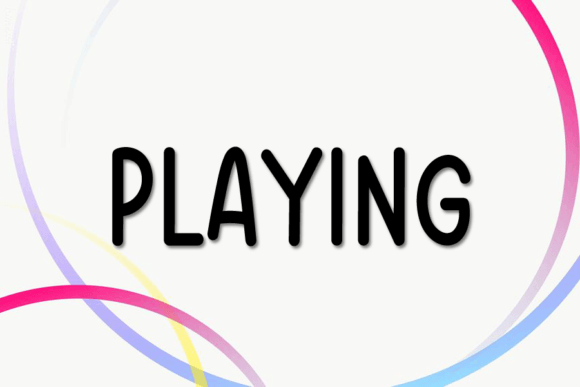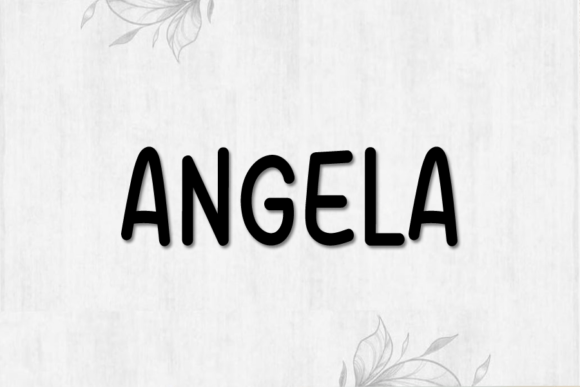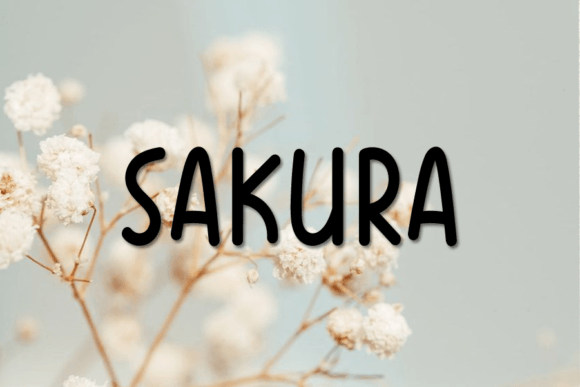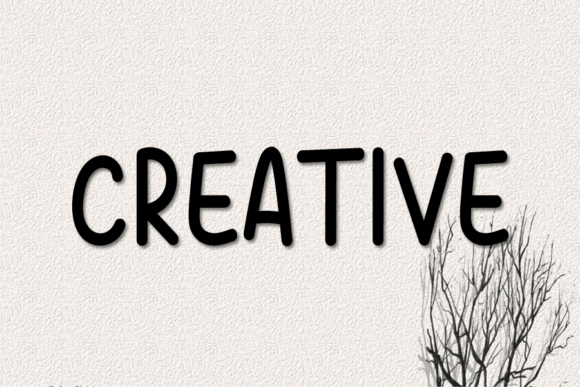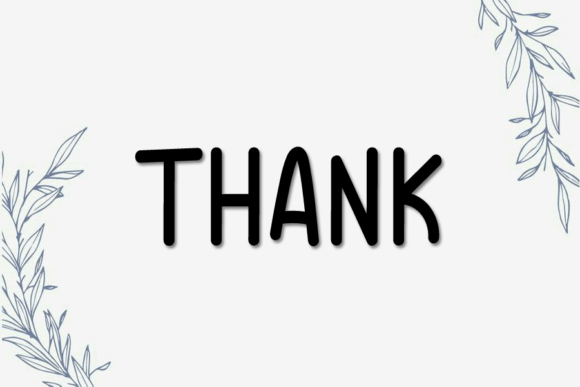
Add a Natural Touch with Handmade Font
Handmade Font is a classic handwritten script designed with a free-flowing, casual style. Inspired by real pen strokes, it brings authenticity and warmth to your creative projects. Its slightly imperfect charm makes it feel personal and expressive—just like something hand-drawn with care.
Because of its simplicity and balance, Handmade Font blends beautifully into both playful and professional settings.
Ideal for Versatile Creative Projects
Whether you’re working on digital designs or printed materials, Handmade Font is a smart choice. It’s flexible enough for a wide range of applications:
• Logotypes and branding materials
• Headlines and posters
• Social media graphics (Instagram, YouTube)
• Corporate and brand identity work
• T-shirts and apparel designs
• Books, comics, and magazines
• Websites and digital ads
• Games, movies, and music artwork
Its readability and natural rhythm make it perfect for designers who want to balance elegance with approachability.
Casual and Creative by Design
HandmadeFont is easy to work with and fun to explore. Because it flows like handwriting, your projects gain a more personal and human feel. Whether you’re creating logos, labels, or promotional materials, this font helps your message feel more genuine.
It’s a go-to solution for everything from daily quotes to brand campaigns. With HandmadeFont, you can instantly give your work a handcrafted look that connects with your audience.